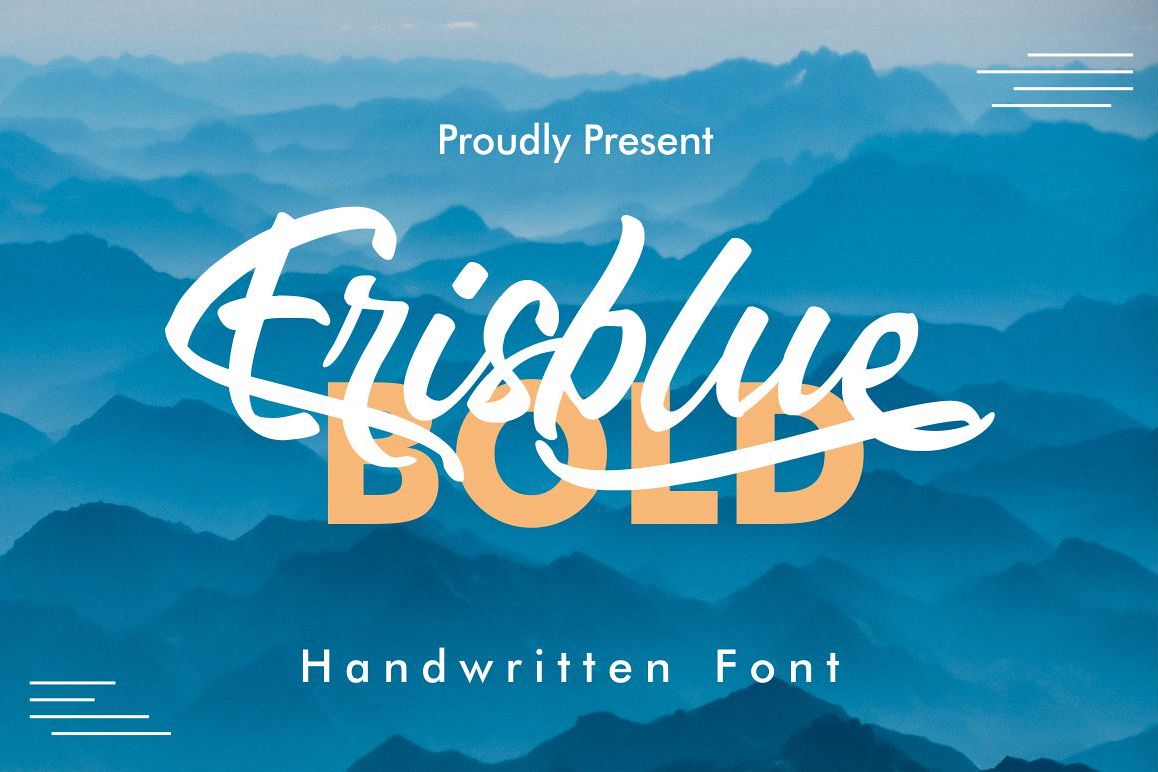
Erisblue Bold
Erisblue an excellent font for modern hand lettering logo or headline / display designs.
Suitable for any design needs : logo, branding, modern advertising design, logos, poster quote, book / cover Title, editorial design, card, custom mug, pillow, t-shirts, and any hand-lettered needs.